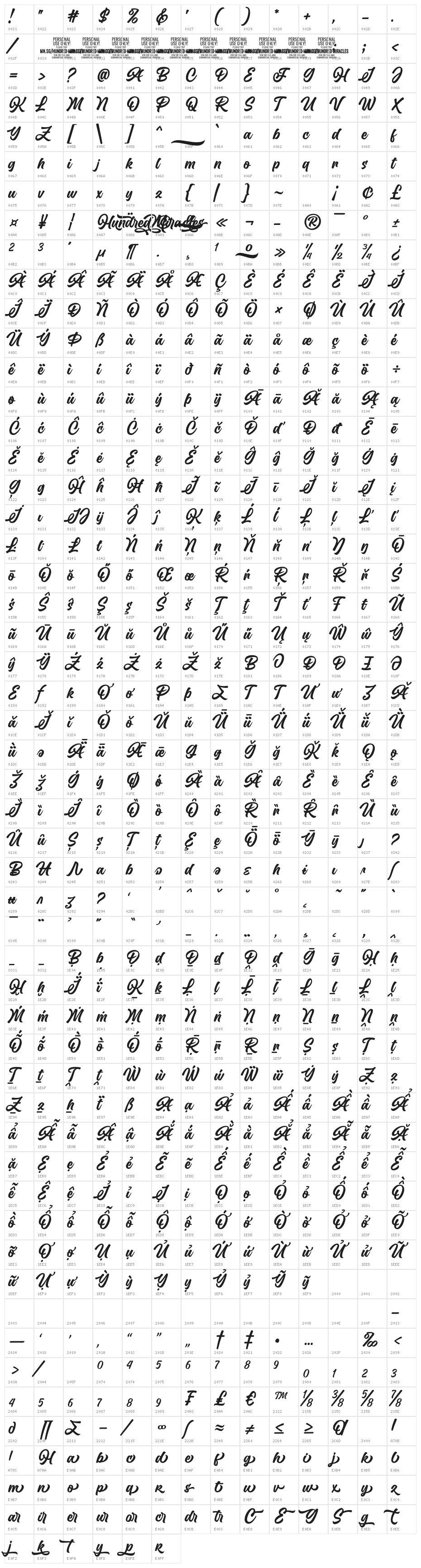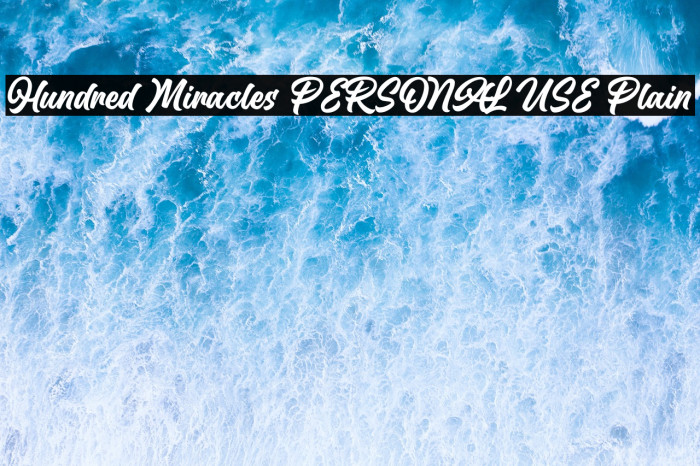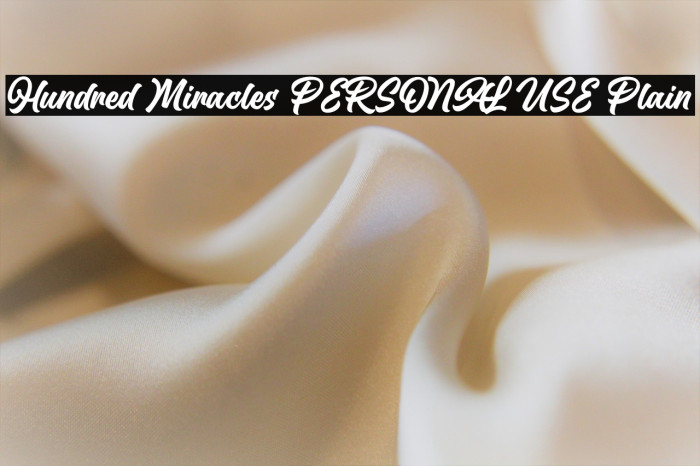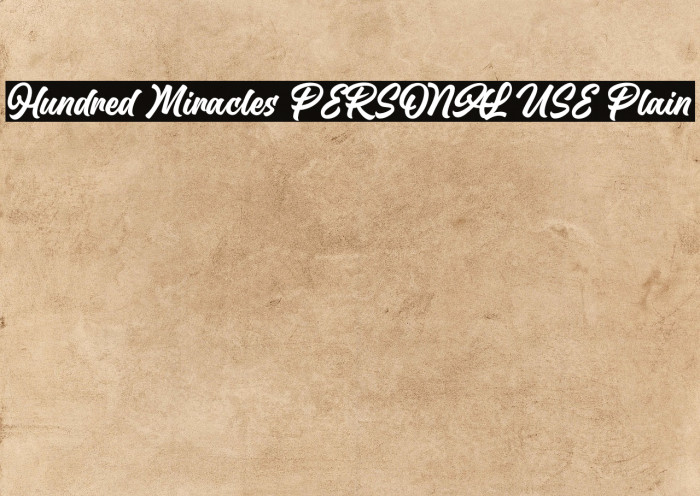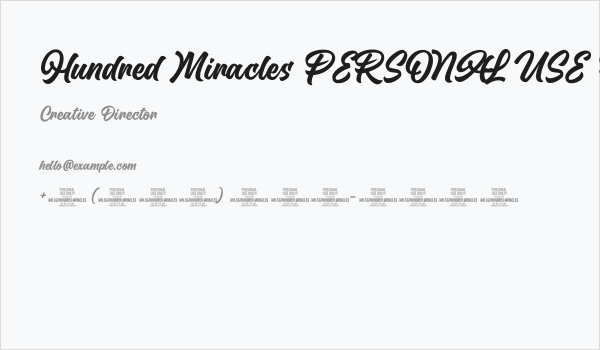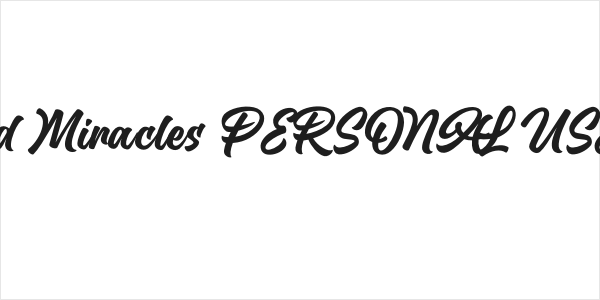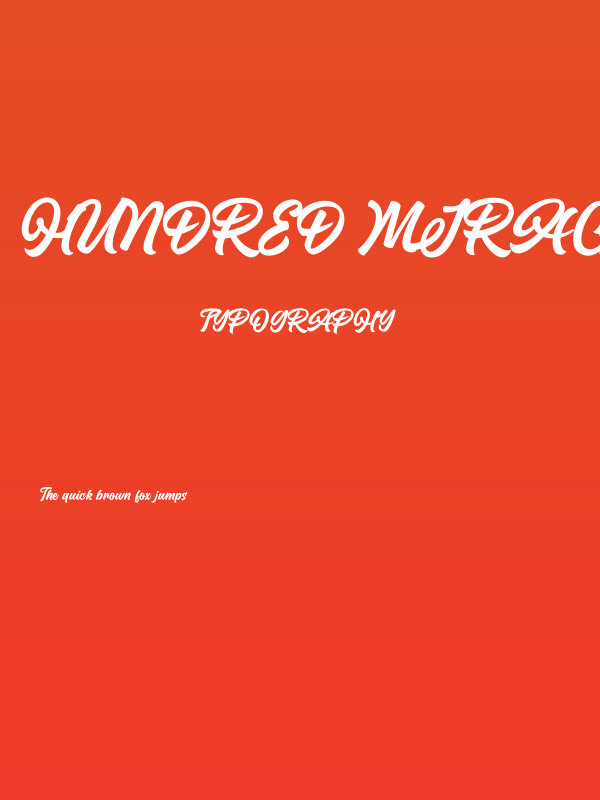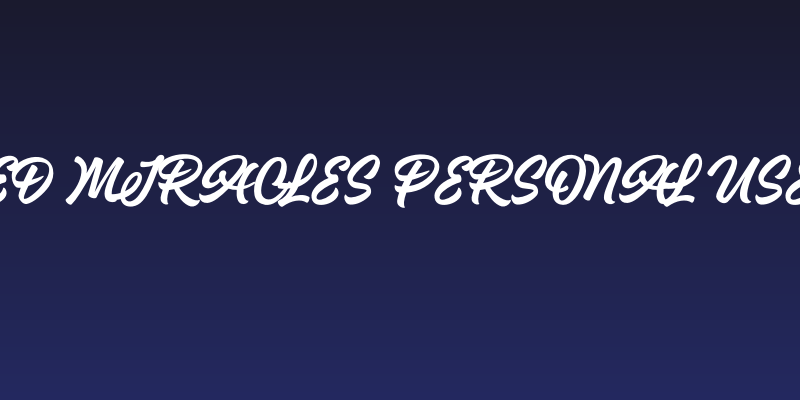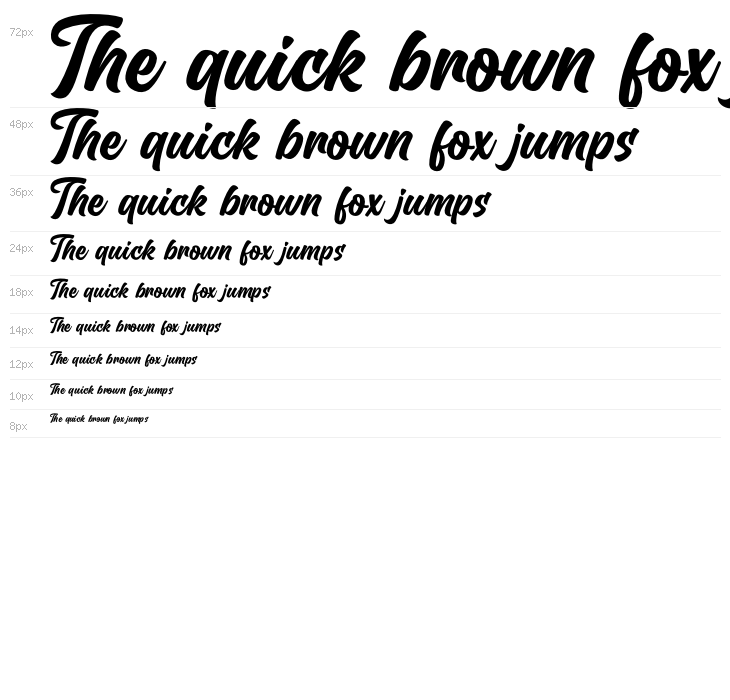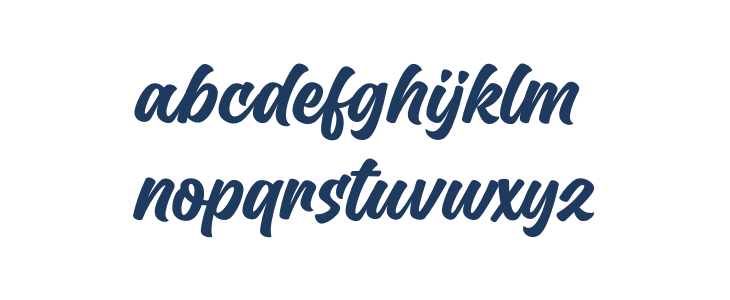
Hundred Miracles PERSONAL USE Plain Font
Hundred Miracles PERSONAL USE Plain Description
This font features a bold, cursive style with a strong emphasis on fluidity and elegance. The uppercase letters are characterized by sweeping curves and connected strokes, giving them a dynamic and flowing appearance. The lowercase letters maintain this fluidity, with a slightly more compact form, enhancing readability while preserving the overall aesthetic. The numerals and special characters are consistent with the cursive theme, incorporating smooth curves and loops. This font exudes a sense of sophistication and creativity, making it suitable for projects that require a touch of elegance and flair.